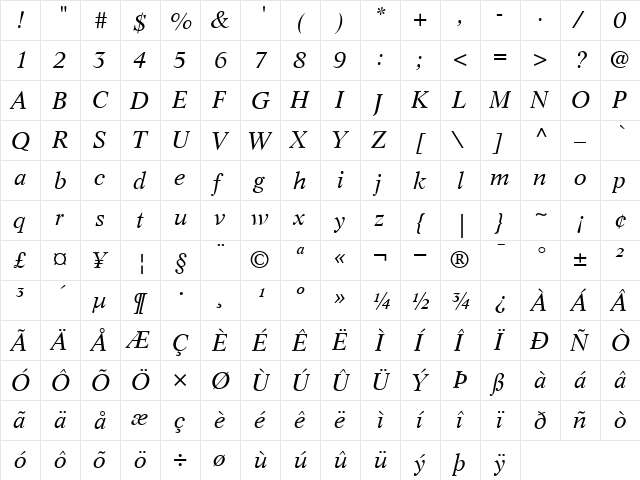
Life RomanItalic Font Preview
Life RomanItalic
Design Context for Life Typeface
Life offers clean, dependable letterforms without strong stylistic allegiance, making it a practical choice for designers who need flexibility. The slanted form adds forward momentum and visual energy.
Pro Tip: Use Life for emphasis, pull quotes, and subheadings where its slanted energy can add rhythm to the layout.